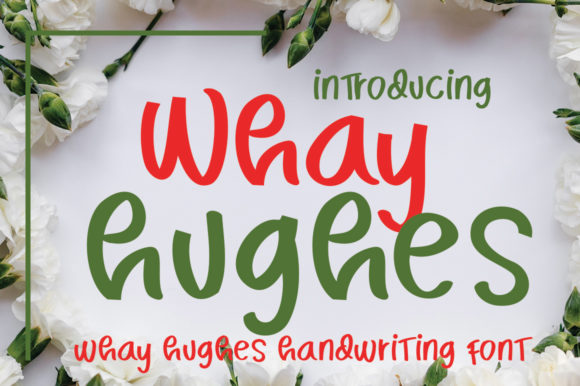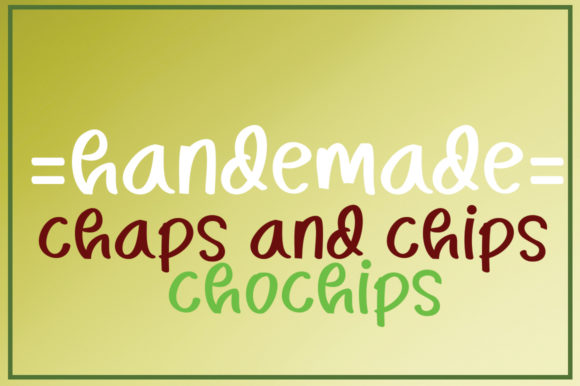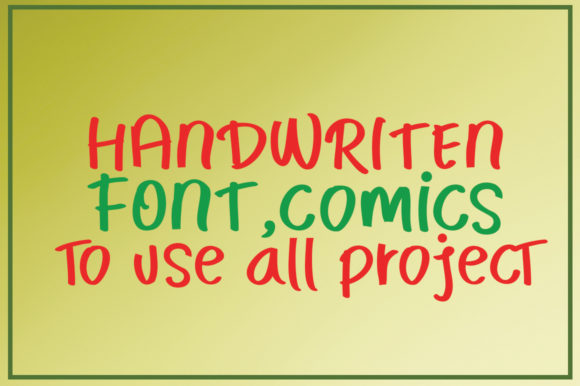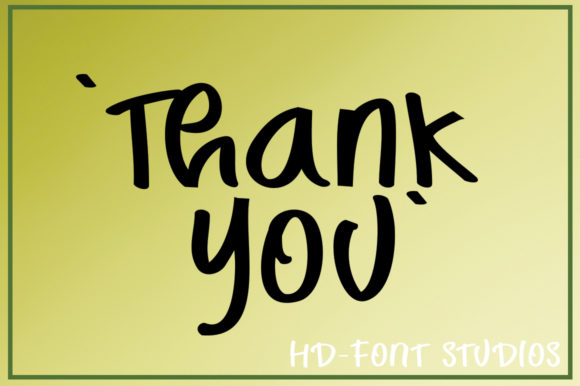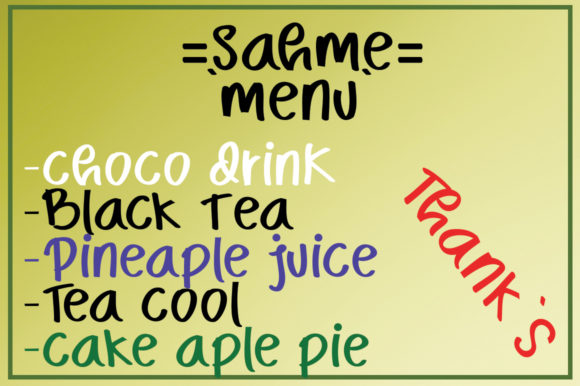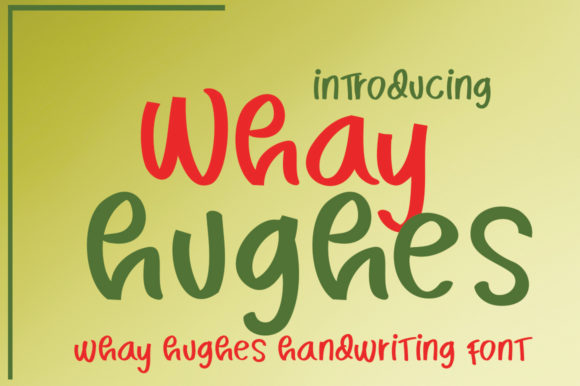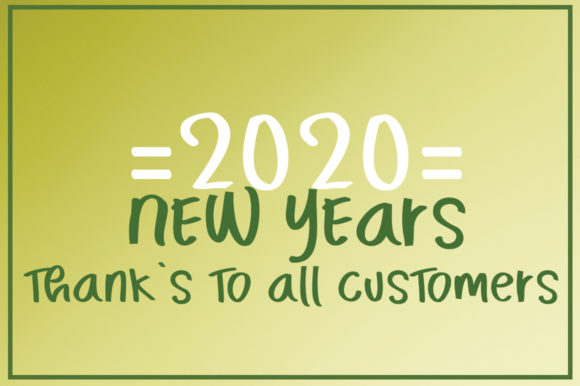
HomeScript FontsWhay Hughes Font Script Fonts Whay Hughes Font FacebookXPinterestWhatsApp Whay Hughes Font Poster 2 Whay Hughes Font Poster 3 Whay Hughes Font Poster 4 Whay Hughes Font Poster 5 Whay Hughes Font Poster 6 Whay Hughes Font Poster 7 About Whay Hughes Font Whay Hughes is a cute handmade font inspired by the lettering of comic art. DOWNLOAD ON CREATIVE FABRICAThis font is sold and delivered by Creative Fabrica. Font Canyon may earn a commission if you buy through this link. People also explored Love Whisper Font Killing Loneliness Font Orange Juice Font Forka Font Diamond Monogram Font Hannah Gillberth Font Mountain Font Stoner Font Alamanda Font 345 0 TagsWhay Hughes Font Previous articleChunkey FontNext articleShisca Canna Font LEAVE A REPLY Cancel reply Comment: Please enter your comment! Name:* Please enter your name here Email:* You have entered an incorrect email address! Please enter your email address here Website: Save my name, email, and website in this browser for the next time I comment. Personal Use Free Doriss Girls Family Personal Use Free Read more about this font Travelling Free Brush Personal Use Free Read more about this font Maxwell Personal Use Free Read more about this font Roland Personal Use Free Read more about this font BLOG Top 7 Google Fonts Alternatives for Faster and Privacy-Friendly Web Design (2025) Top 7 Google Fonts Alternatives for Faster and Privacy-Friendly Web Design (2025) When it comes to web typography, Google Fonts has long been the go-to... How to Cut Any Font on Cricut: Convert a Font to SVG (Free) Where to Buy American Fonts Online in 2024 Transform Your Website: Elevate Your Typography with 7 Best Web Font Generators